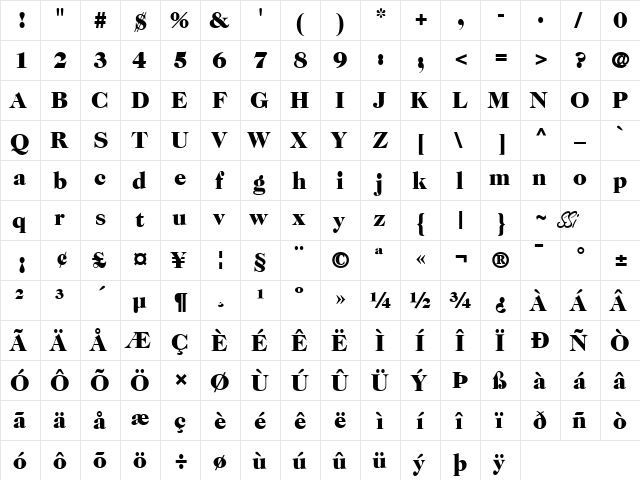
Caslon Two Black SSi Black Font Preview
Caslon Two Black SSi Black
Design Context for Caslon Two Black SSi Typeface
Caslon Two Black SSi takes a measured approach to typography — its balanced proportions and neutral character make it a reliable workhorse for both digital and print work.